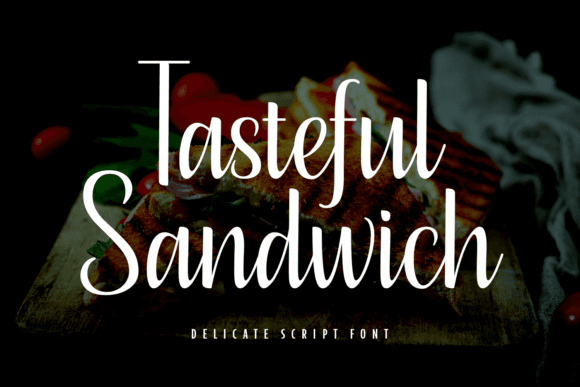
Tasteful Sandwich Font for Headlines, Posters and Branding Projects
The Tasteful Sandwich Font is a display typeface designed for maximum visibility and creative flair. Its chunky lettering and playful rhythm make it ideal for food branding, storefront signs, poster layouts, and digital advertisements that need to stand out.
This font combines vintage charm with a modern twist, offering a distinct typographic voice for titles, logos, and merchandising. Whether you're crafting for print or web, it installs easily and delivers high-impact visual appeal across projects.
- Graphic designers creating logos or packaging
- Marketing teams building bold promotions
- Food and beverage brands needing storefront signage
- Poster designers seeking retro-modern type
- Print-on-demand sellers developing standout SKUs
- Posters, flyers, and menu boards
- Logo designs and brand identity assets
- Food packaging and deli branding
- T-shirts, aprons, and merchandise
- Web banners and advertising graphics
- Perfect for food branding and signage
- Bold, readable style for large-format printing
- Retro flair with modern usability
- Great for both print and digital projects
Q: What kind of font is Tasteful Sandwich?
A: It’s a bold display font designed for posters, food branding, and standout headlines.
Q: Is this font good for signage and print?
A: Absolutely. Its bold strokes and clean lines are perfect for large-scale printing and visual display.
Q: Does it include numbers and symbols?
A: Yes, the font package includes full alphabet, numbers, and basic punctuation.
| Feature | Tasteful Sandwich Font | Standard Sans Serif Font | Image-Based Text Graphic |
| Primary Use | Headlines, posters, branding | General-purpose text | Non-editable decorative text |
| Design Style | Bold, retro-modern display | Neutral and functional | Static design, not a font |
| Branding Use | Ideal for food and retail | May lack personality for logos | Not suitable for editing |